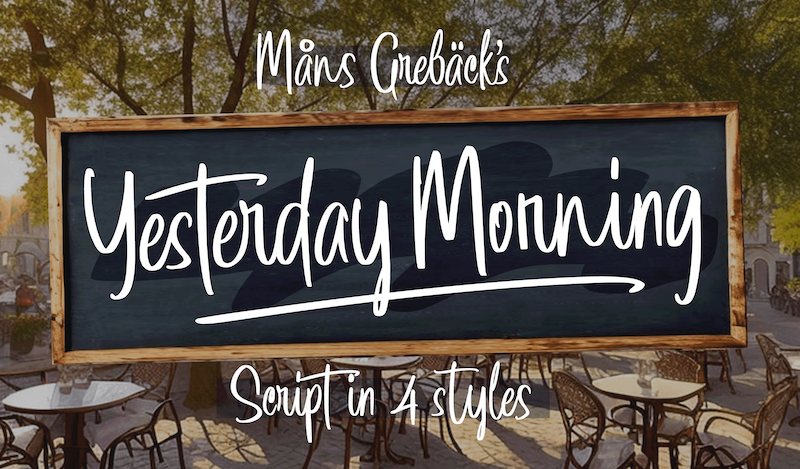
Preview and download Yesterday Morning Font. Created by Måns Grebäck in Script Handwritten styles with Free for personal use license.
NOTE: This font is for PERSONAL USE ONLY! To purchase a commercial license, visit: http://mn.sg/yesterday Yesterday Morning is a lively handwriting font that captures the essence of an active and cute brush style. The font's hand-brushed appearance has an authentic touch, making it feel warm and approachable. Use underscore _ anywhere in a word to make a swash. Use multiple underscore to make different swashes. Example: Crea___tion For questions, please visit www.mansgreback.com/faq |